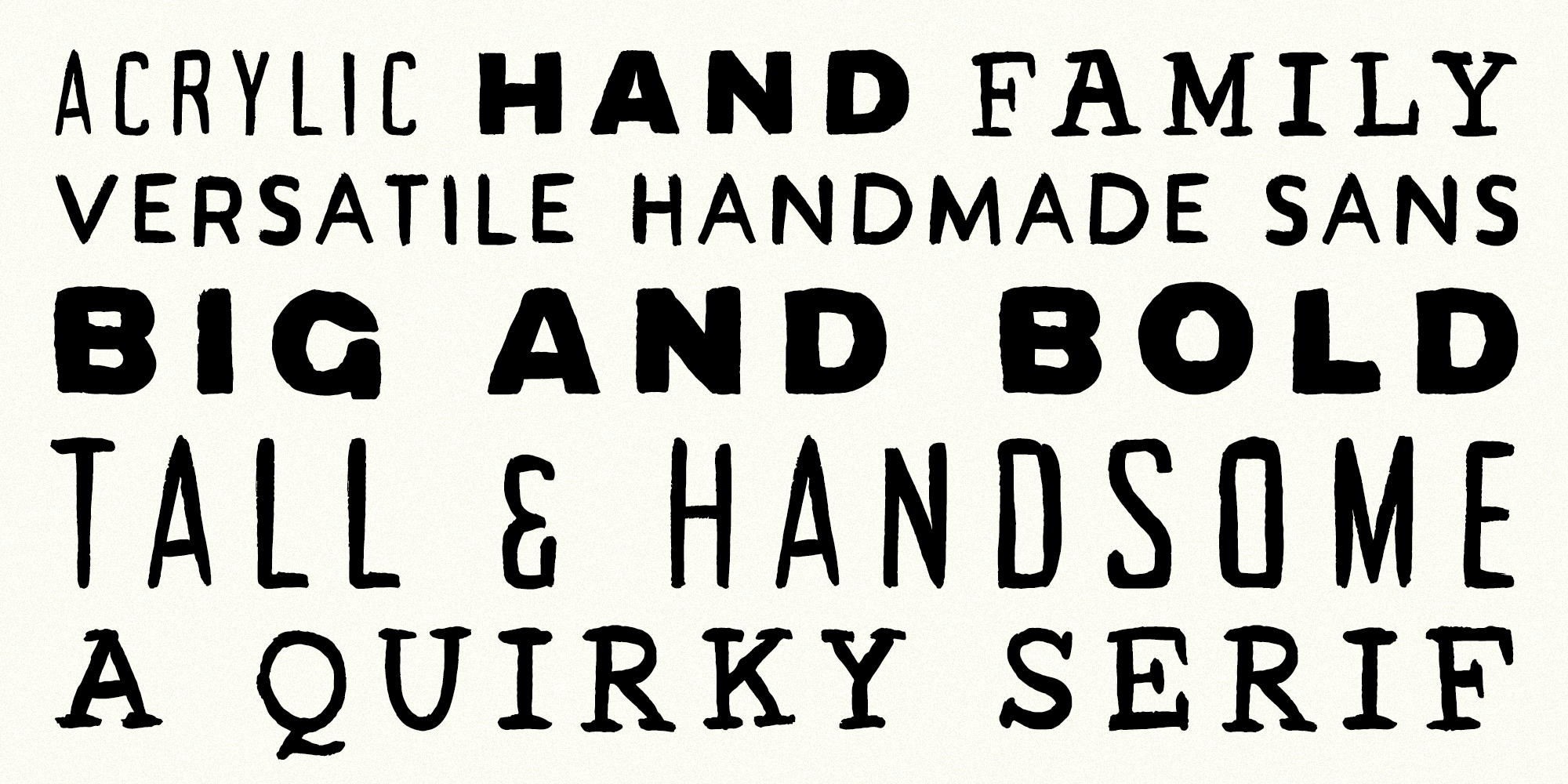
The Acrylic Hand Font is ideal for artistic poster designs, hand-painted signage, creative workshop branding, art supply packaging, craft store materials, painting studio logos, artistic event promotions, and DIY project instructions. This expressive typeface excels in projects for art schools, painting studios, craft businesses, creative workshops, art supply retailers, and organizations celebrating handmade artistry, personal expression, and the authentic beauty of hand-painted typography.
What makes the Acrylic Hand Font exciting is its authentic capture of acrylic paint brush strokes with genuine artistic spontaneity and creative energy. The font features naturally imperfect letterforms with visible brush textures, paint drips, and organic variations that recreate the tactile experience of hand-painting letters on canvas. Its artistic character and handcrafted authenticity make it perfect for projects requiring genuine creative expression and artisanal quality. The font's painterly nature and human touch transform digital text into handmade artistic statements.
The Acrylic Hand Font family includes artistically-inspired variations: Light Brush, Regular Paint, Bold Strokes, Dry Brush, Wet Paint, and Textured versions. Each style maintains the font's hand-painted character while offering different brush techniques and paint application effects for diverse artistic applications. The family also features paint splatter elements, brush stroke ornaments, and artistic symbols that enhance creative design projects.
Whether you're developing artistic brand identities, creating handmade marketing materials, or designing creative promotional campaigns, the Acrylic Hand Font Free Download provides the perfect solution for projects requiring authentic hand-painted typography. This remarkable typeface brings genuine artistic expression to design work, making it an essential resource for designers celebrating creativity, handcrafted artistry, and the personal touch of human-made art.